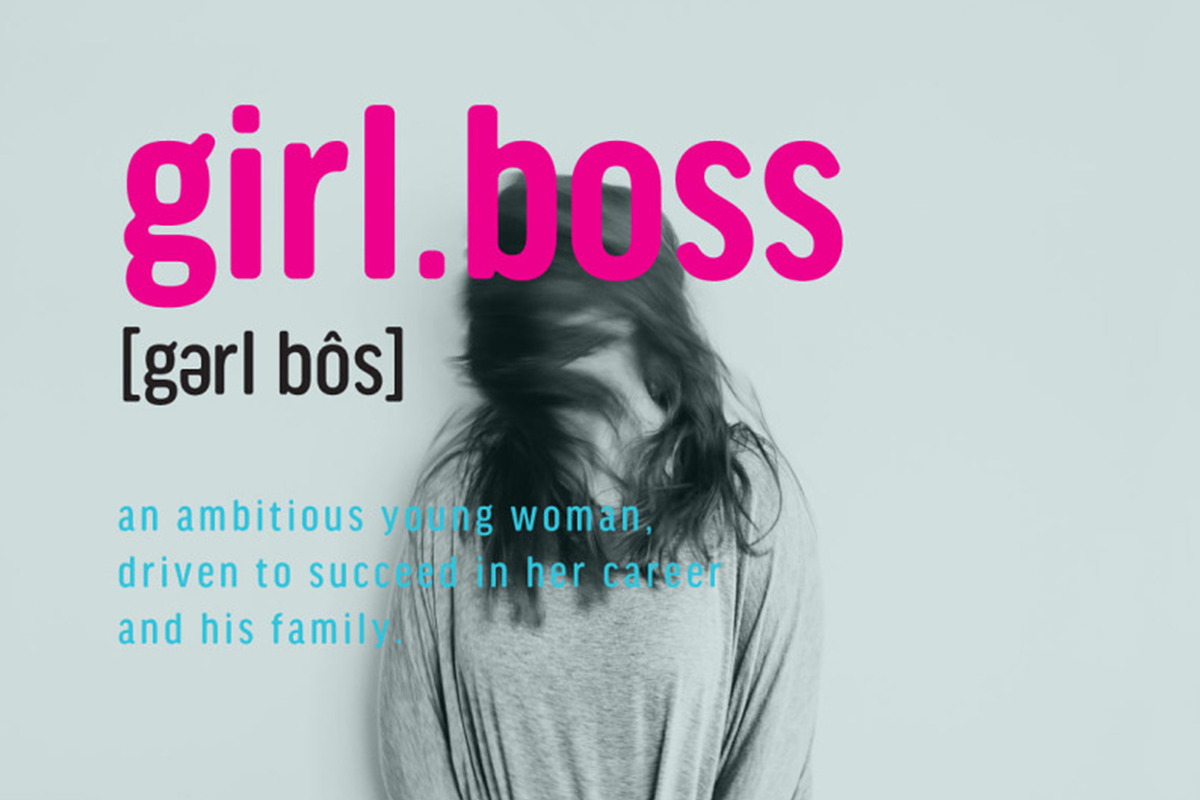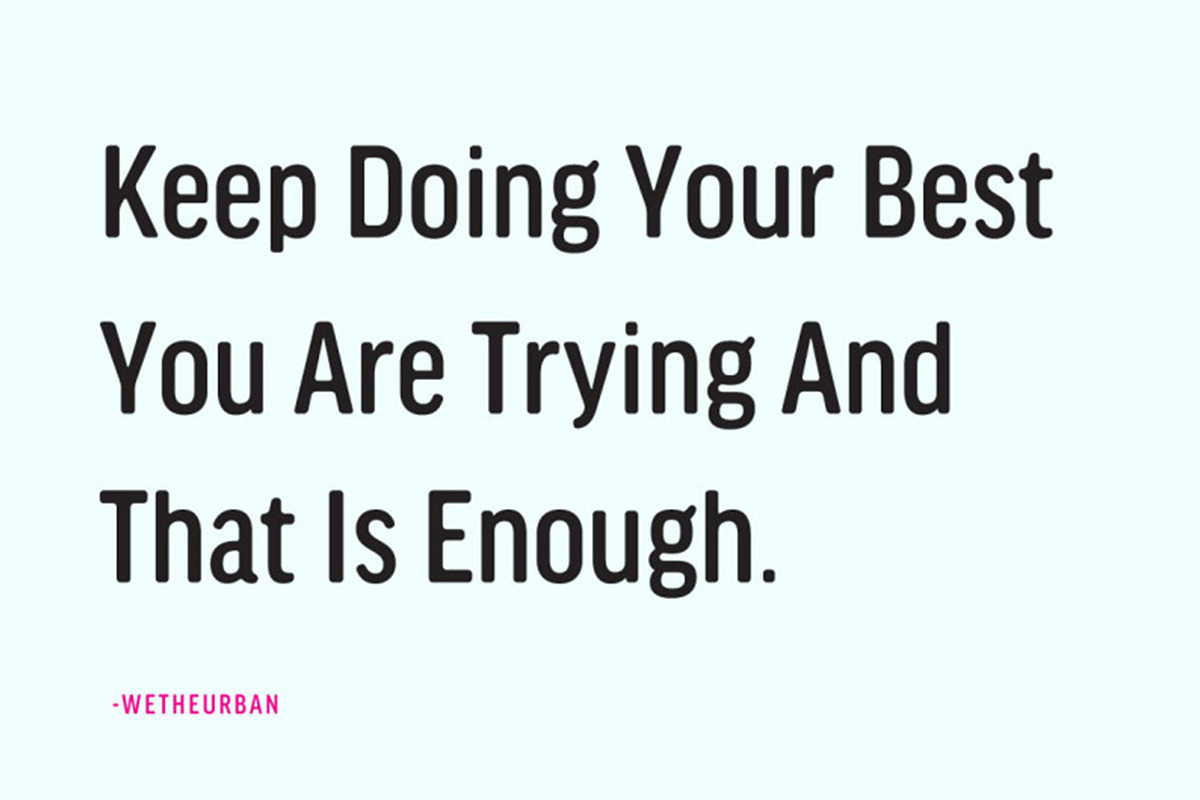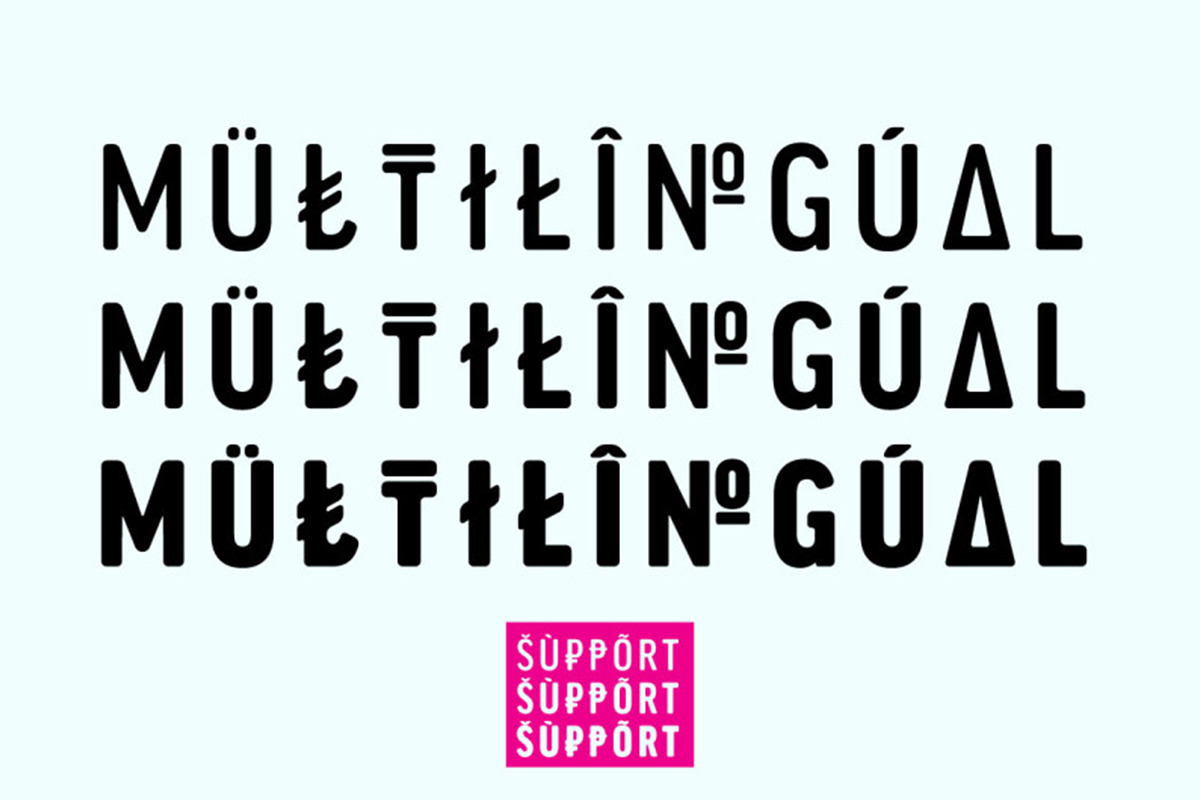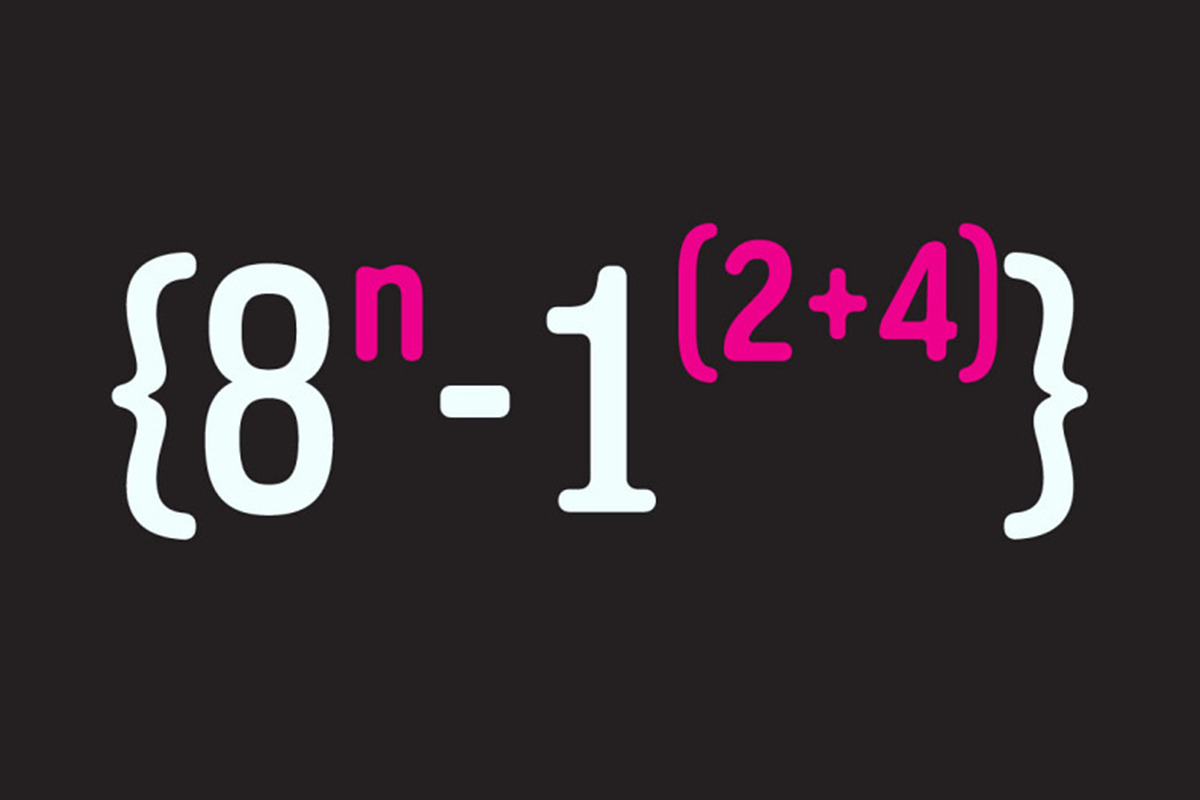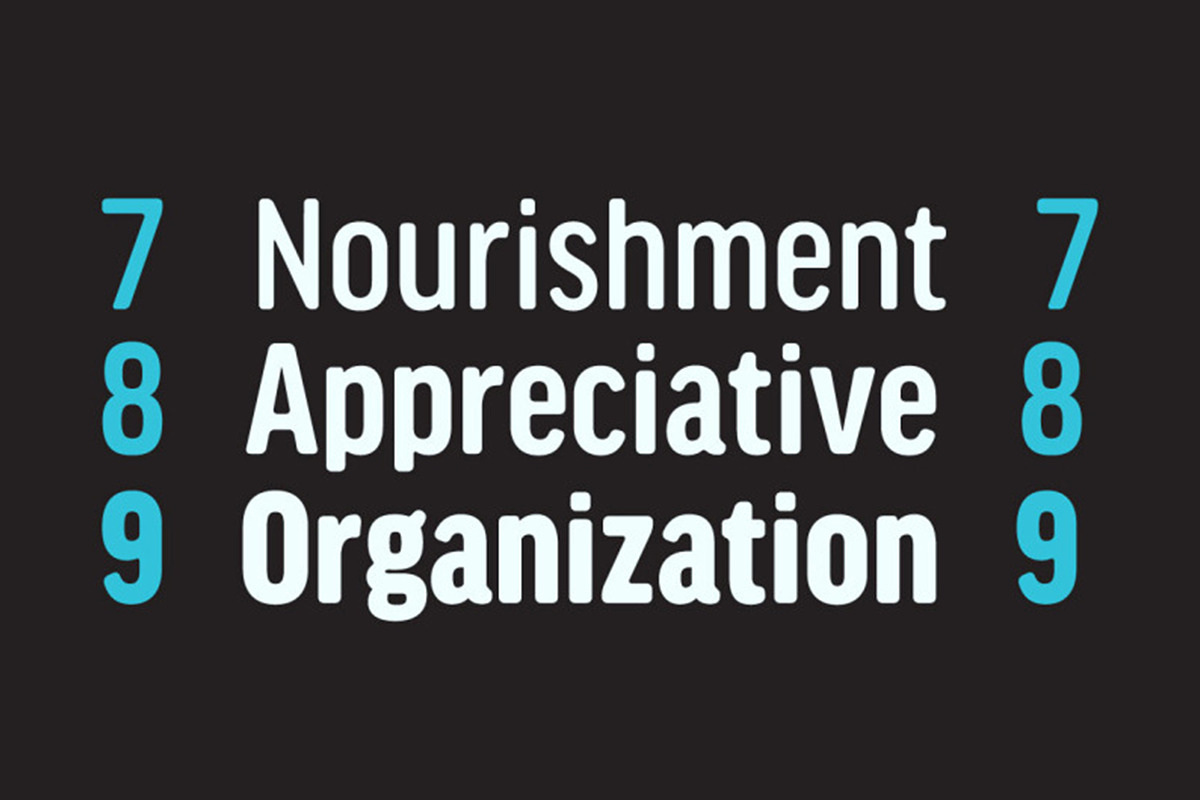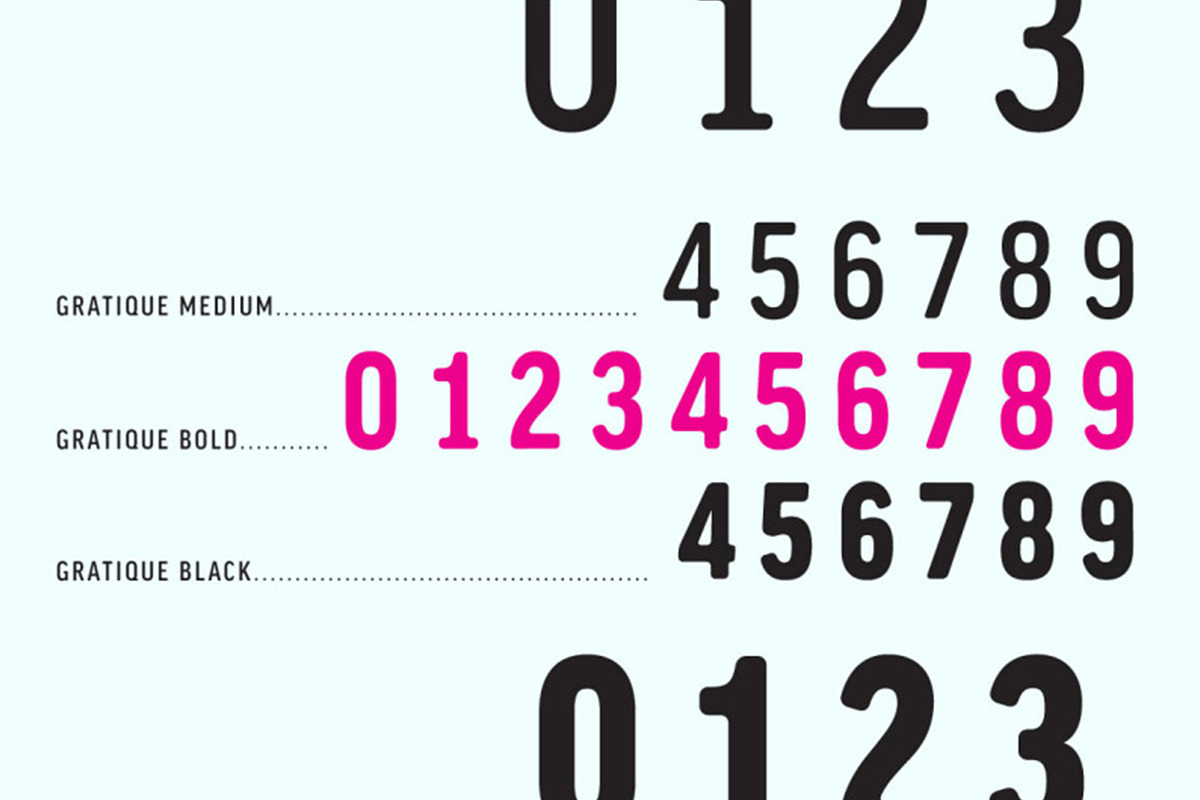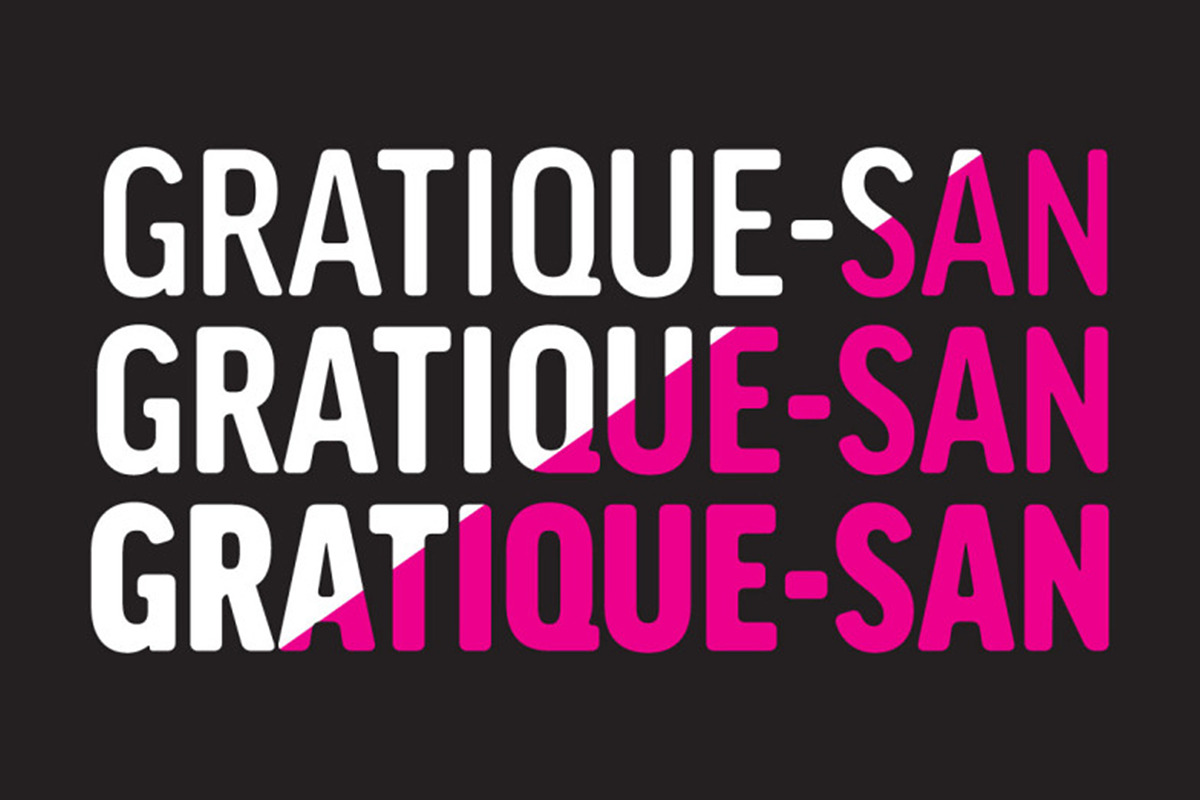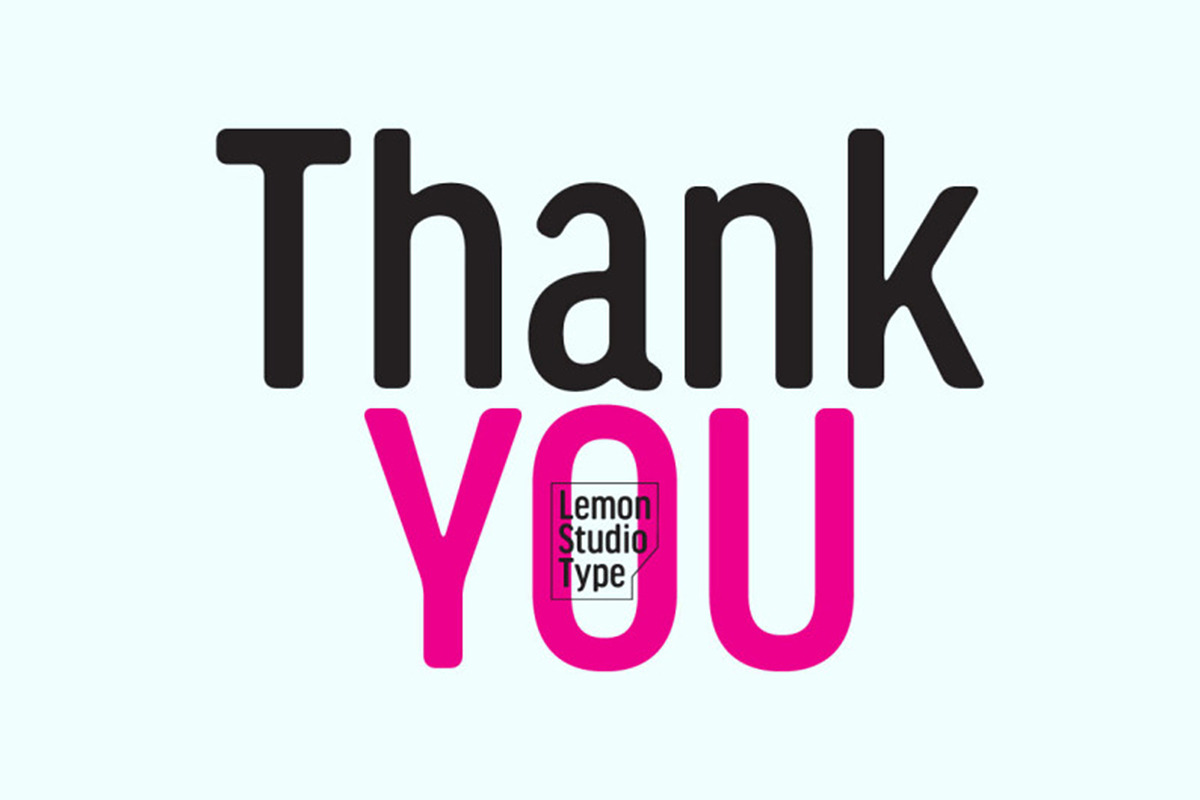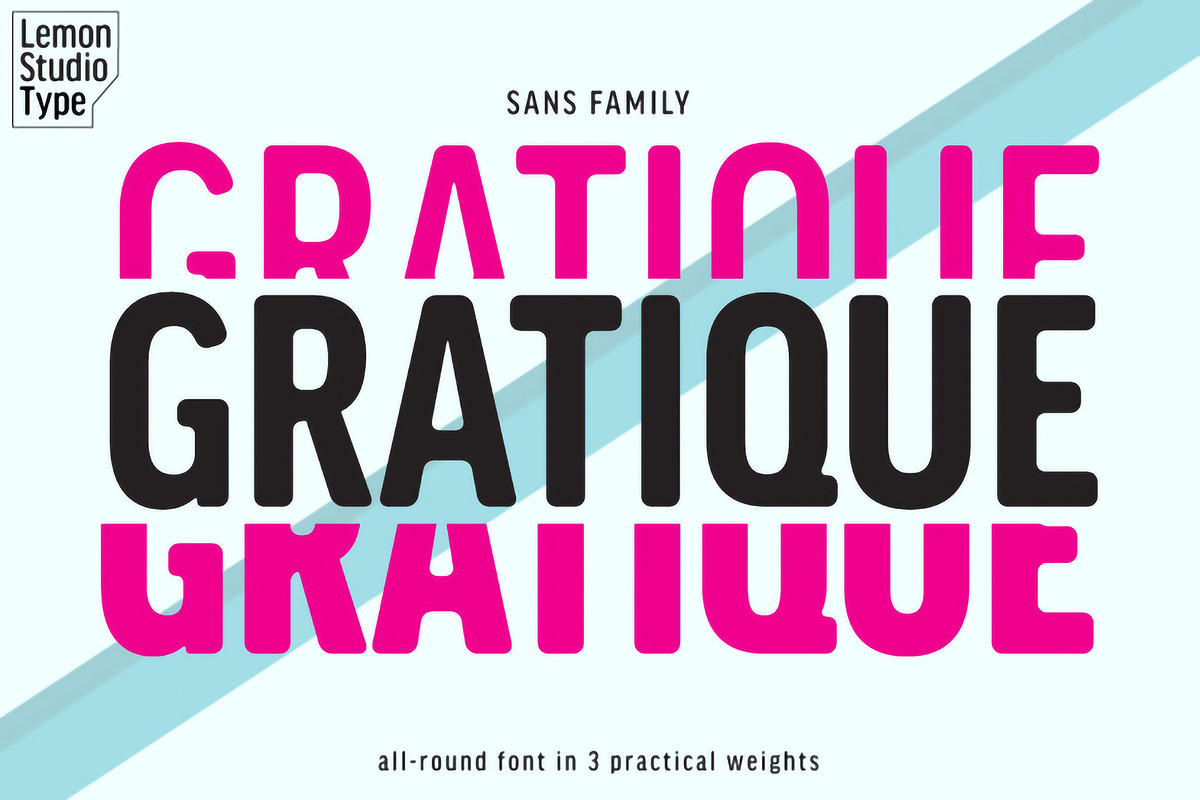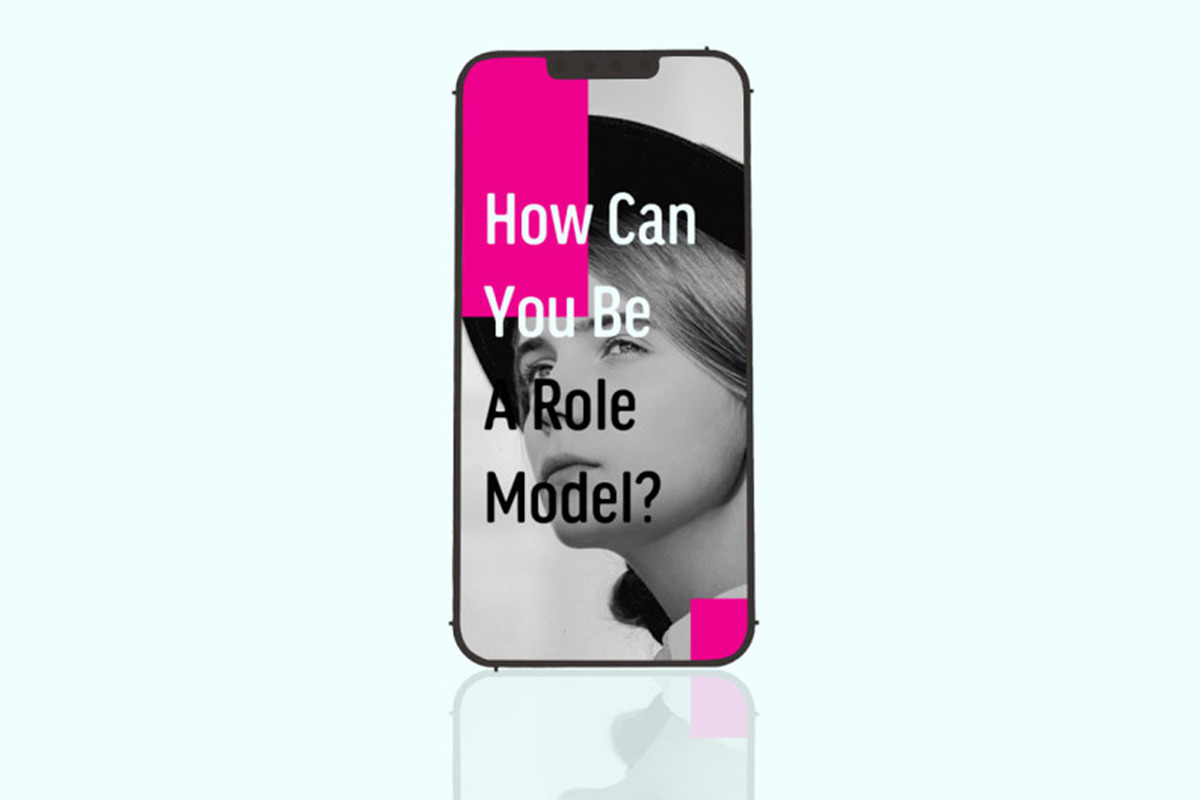
Gratique
Gratique is a semi-rounded sans-serif typeface. The curvature of the corners fits perfectly and makes it look so cool. Gratique comes with 3 different font variants, namely medium, bold, and black.
Gratique is perfect for headings, typography, branding, mockups, or any other design you need especially for a sans-casual style, it will work really well.
-OPEN TYPE FEATURES:
-Case Sensitive Forms -Denominators -Fractions -Historical Forms -Standard Ligatures -Scientific Inferiors -Subscripts -Superscripts -Multilingual Support, etc.